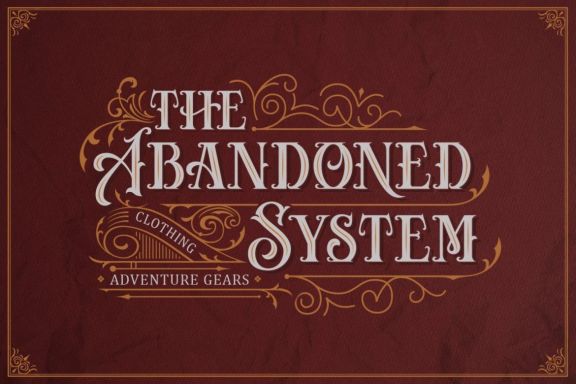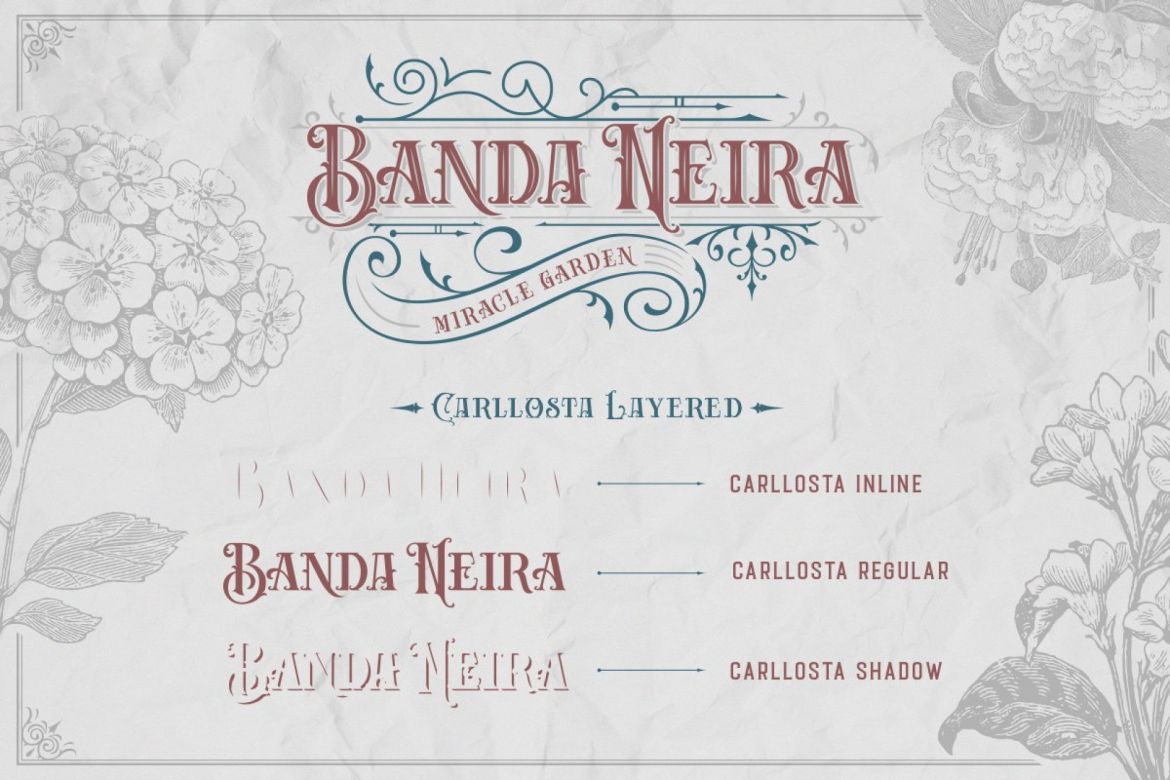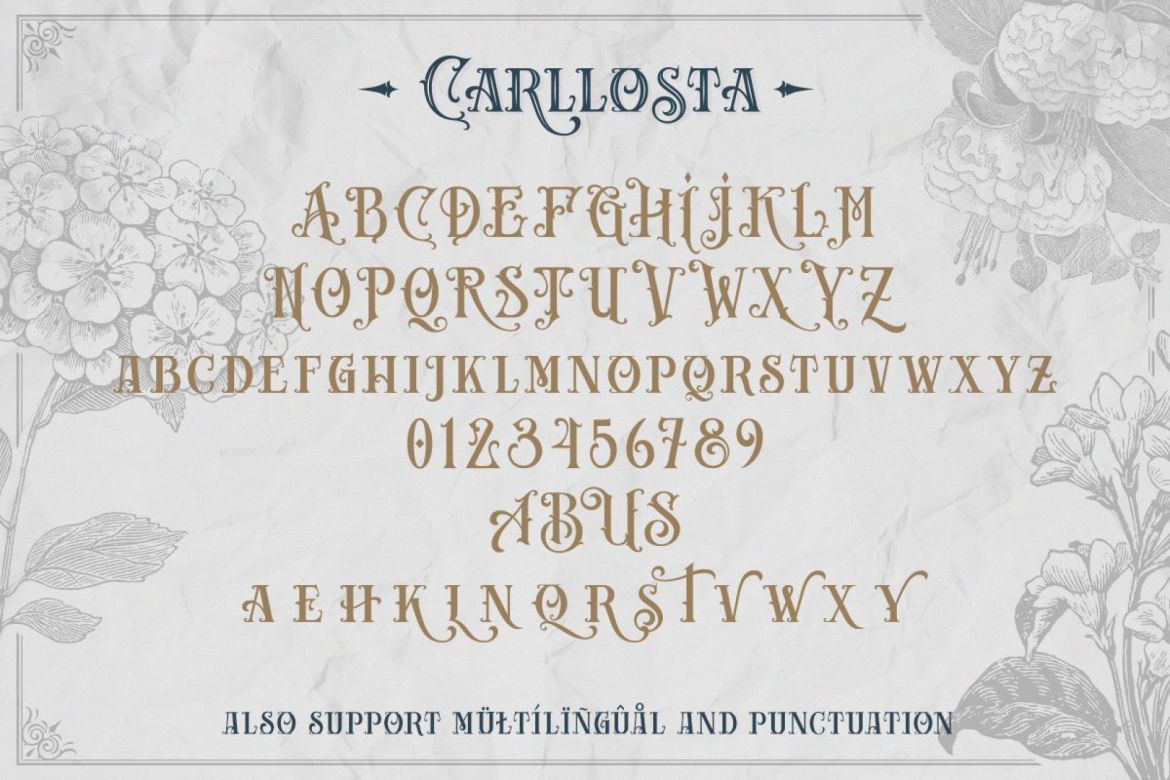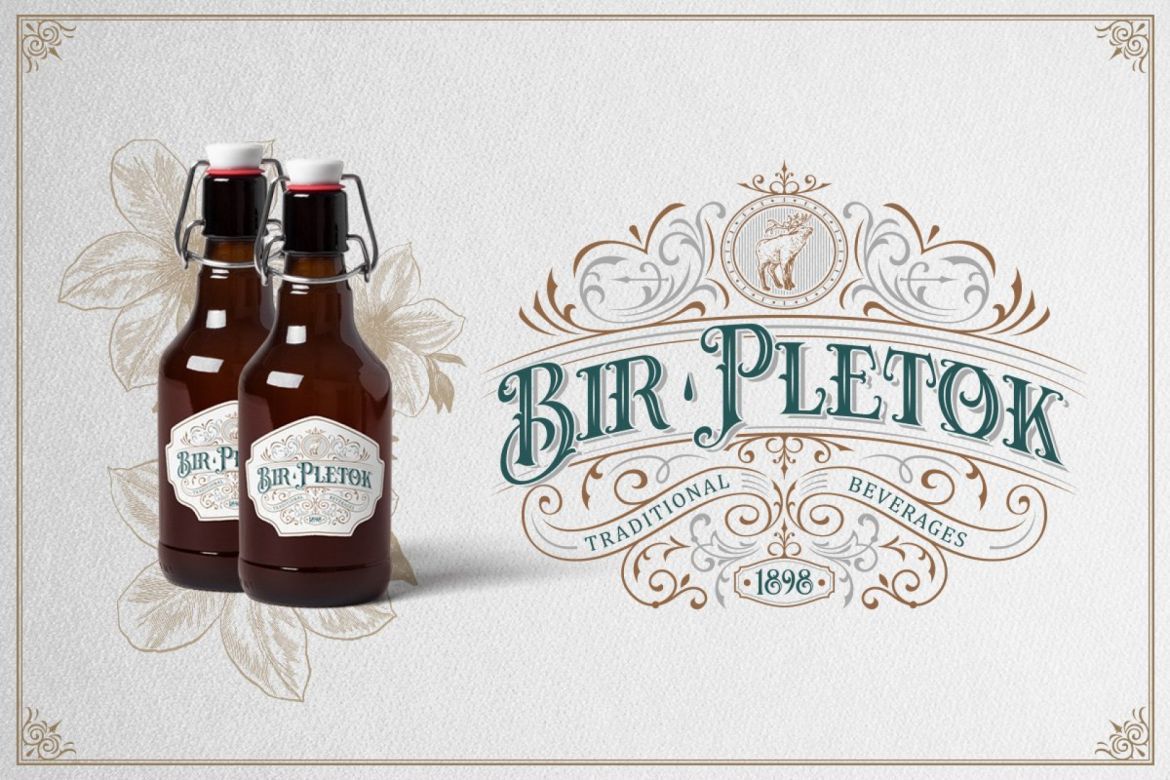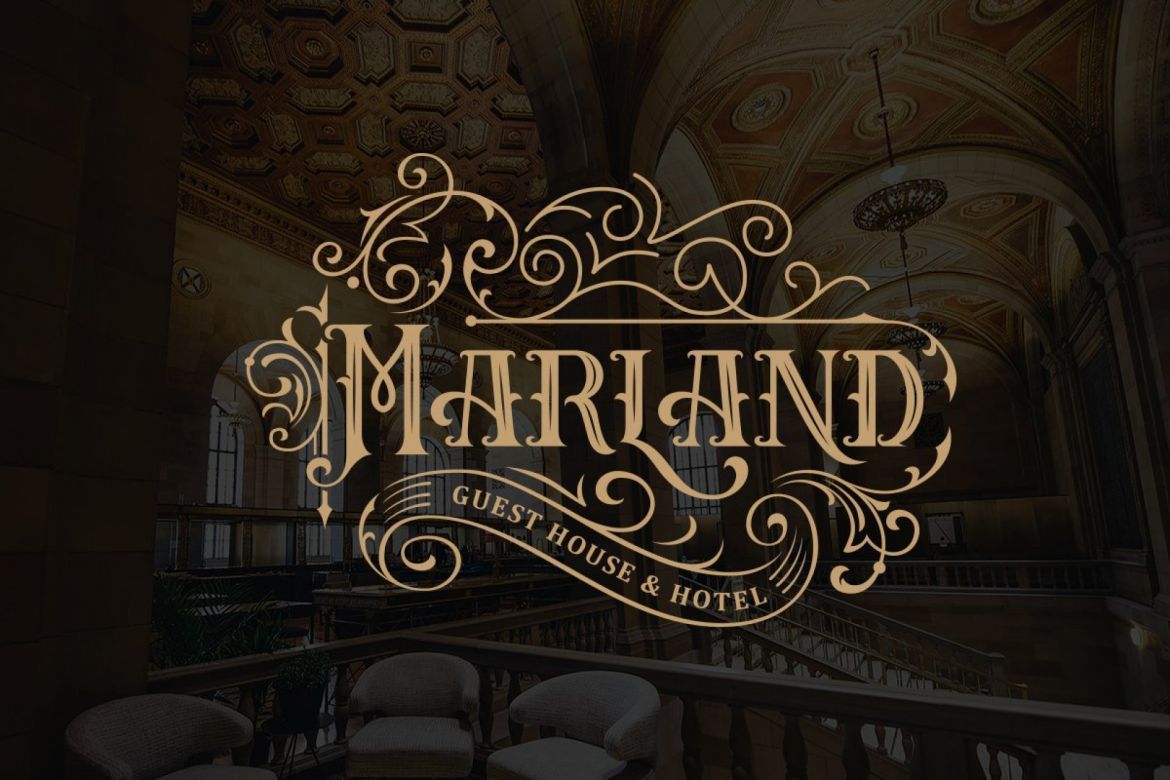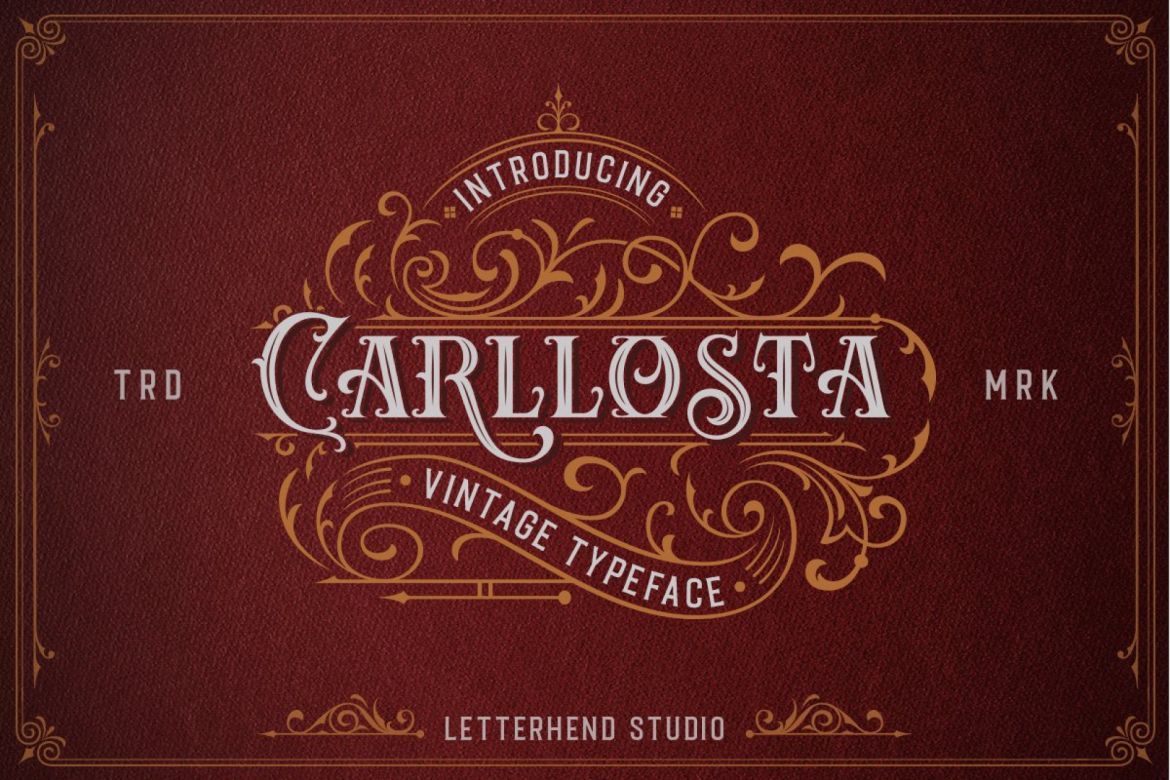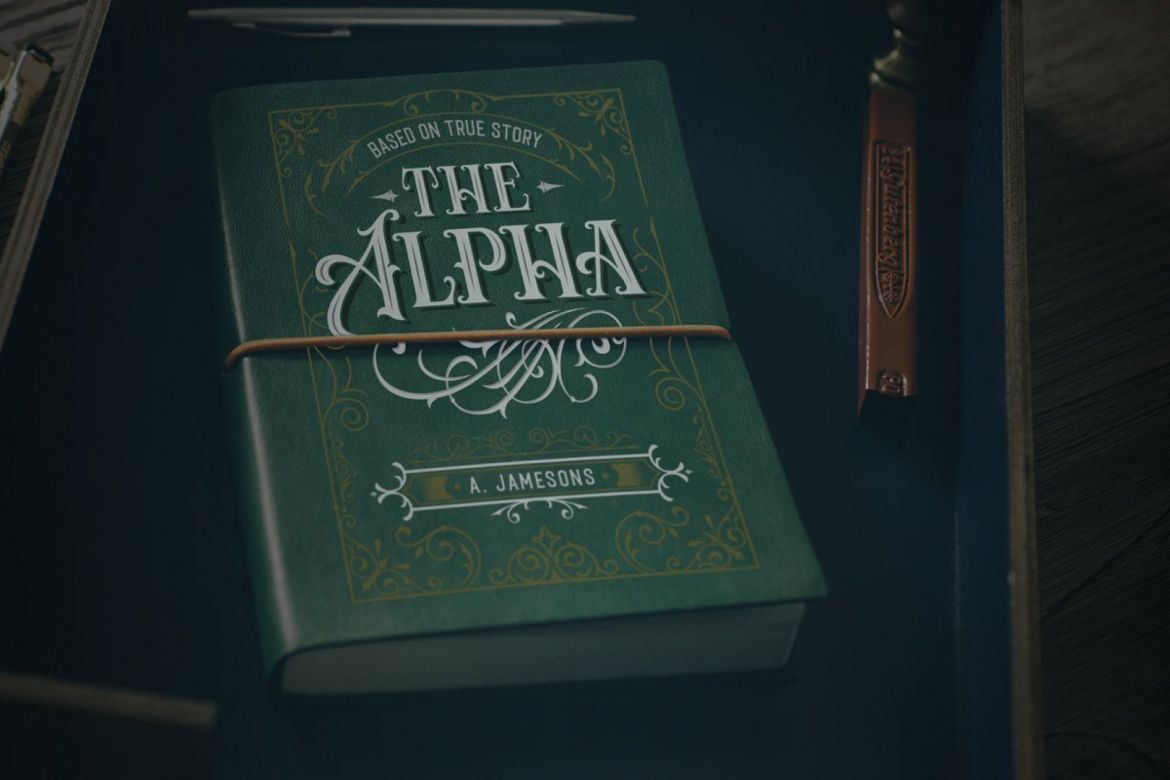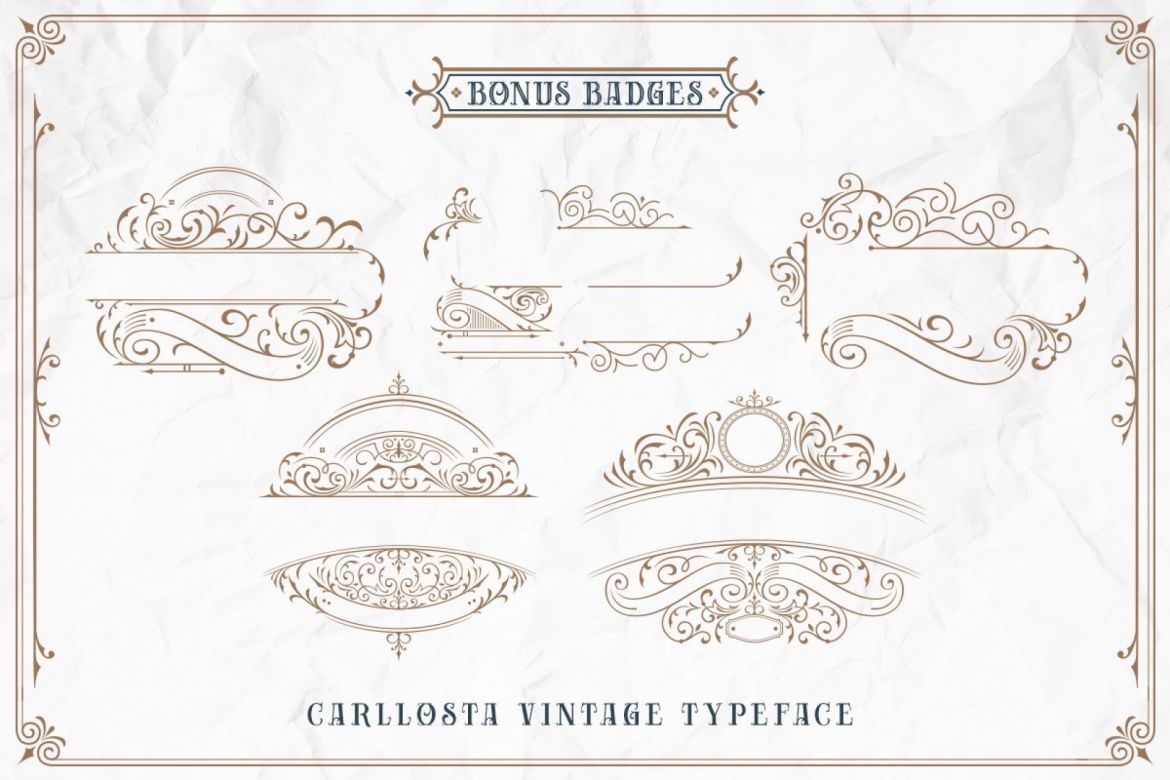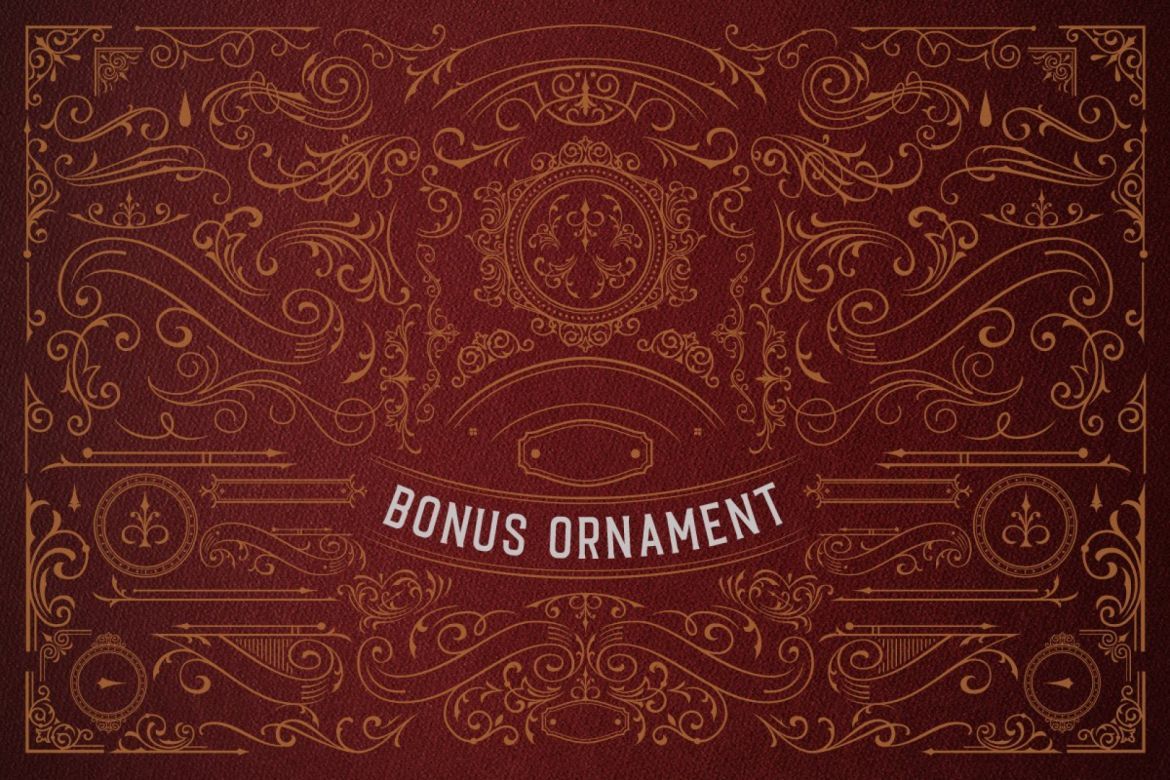
• suitable for headers, logos, clothing, invitations, branding, packaging, advertising, etc.
• this typeface contains beautiful decorative ornaments that are ready to be used to make vintage letters in seconds.